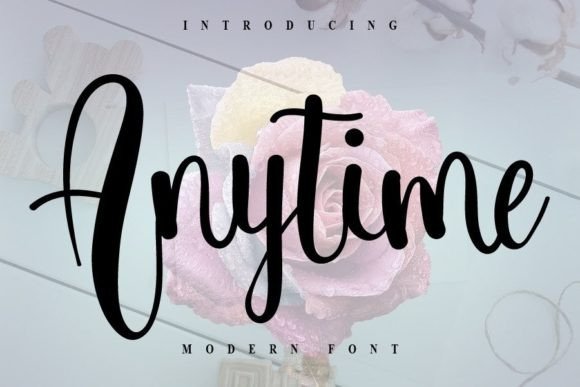
The Ultimate Design Hack: Unleashing the Power of Anytime Font
Have you ever been in the middle of a design project, and suddenly, you’re stuck on finding the perfect font? I recall a particularly frustrating experience while working on a wedding invitation project. My client wanted a font that was elegant, yet playful, and I just couldn’t seem to find the right fit. That’s when I stumbled upon Anytime Font, a game-changing handwritten font that has since become a staple in my design toolkit.
A First Impression: What Makes Anytime Font Special
Anytime Font is a fresh and beautiful handwritten font, perfect for a wide range of design projects, including YouTube banners, covers, logos, mockups, wedding invitations, cards, flyers, crafts, and many more. Its simplicity and uniqueness make it an excellent choice for designers, crafters, and creative hobbyists looking to elevate their designs.
So, what makes Anytime Font so special? Here are a few things I love about it:
• ✨ Fresh and modern look: Anytime Font has a unique, handwritten feel that’s both elegant and approachable.
• ✅ Versatility: It’s perfect for a wide range of design projects, from digital to print.
• 💡 Easy to read: The font is clear and legible, making it ideal for body text and headings.
Of course, no font is perfect, and Anytime Font has a few minor quirks:
• 🤔 Limited multilingual support: While Anytime Font covers the basics, it may not support more exotic languages.
• ⚠️ Occasional kerning issues: As with any font, you may need to adjust kerning for optimal results.
3. Experiment with OpenType features, such as Stylistic Alternates, to add some personality to your design.
4. Explore the Glyphs panel to access OpenType features, such as ligatures and stylistic alternates.
The Story Behind Anytime Font
Anytime Font was created with the goal of providing a fresh, modern look for designers and crafters. Its creator, a talented typographer, drew inspiration from classic handwriting styles and infused them with a modern twist. The result is a font that’s both elegant and approachable.
Is Anytime Font suitable for body text? While Anytime Font is primarily designed for headings and titles, it’s also clear and legible enough for body text.